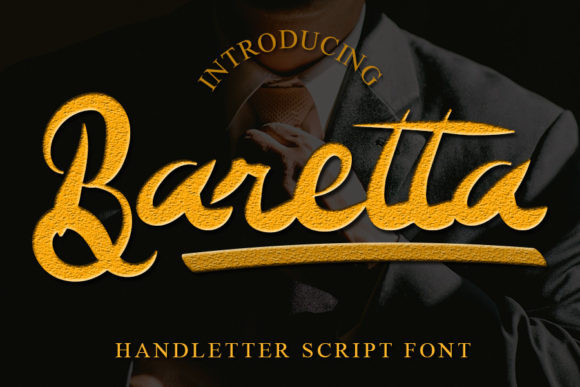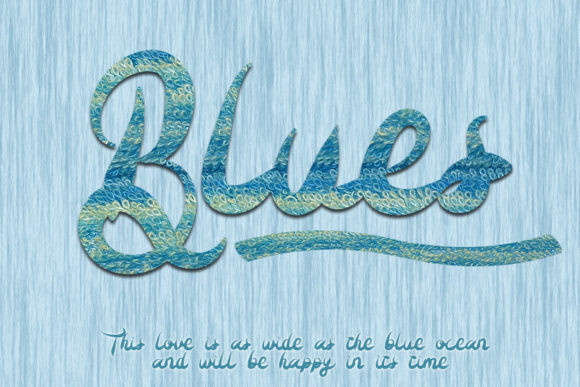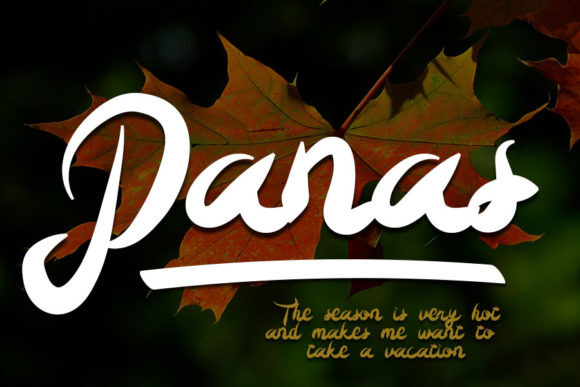
Baretta Font
Baretta is a handwritten font that can be used for all chalkboard quotes or teaching material! Its authentic handwritten look and feel will add a personal and realistic feel to your designs.